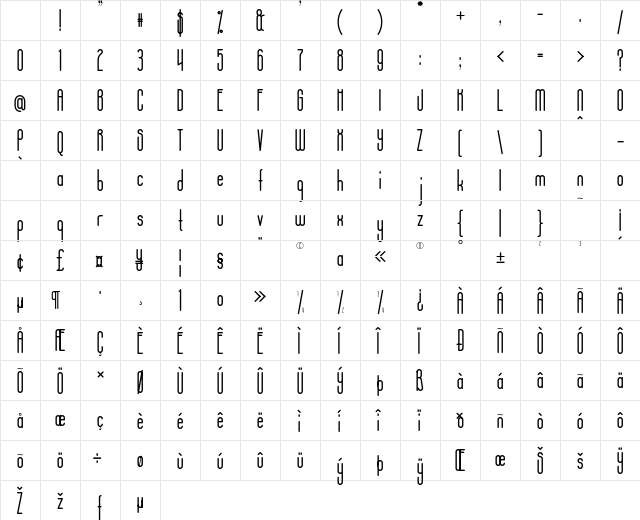
Complete Aposiopesis Condensed Regular glyph index. Displaying only characters natively supported by Aposiopesis Condensed Regular font.
Aposiopesis Condensed is a composed and adaptable typeface that performs quietly and consistently across a wide range of design contexts. Its narrow stance lets it pack a punch even in space-constrained designs.